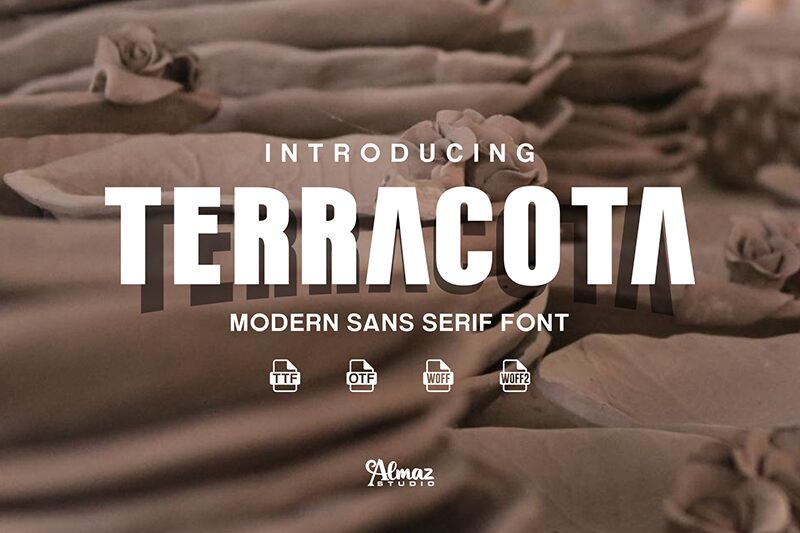
Terracota
Terracota font by Almaz Studio is a bold, condensed, geometric sans serif typeface that leaves an impact wherever it is applied. The font offers a modern industrial look through its distinctive futuristic style and design features. Its eye-catching nature makes it great for short texts, headings, posters, or any other project where you want to deliver messages clear and loud.
The free sans serif font is commonly used in branding and packaging designs. It can also land its strong personality when designing logotypes or in website hero sections, postcard designs, inspirational quotes, prints on clothing items like t-shirts or sweatpants and more.